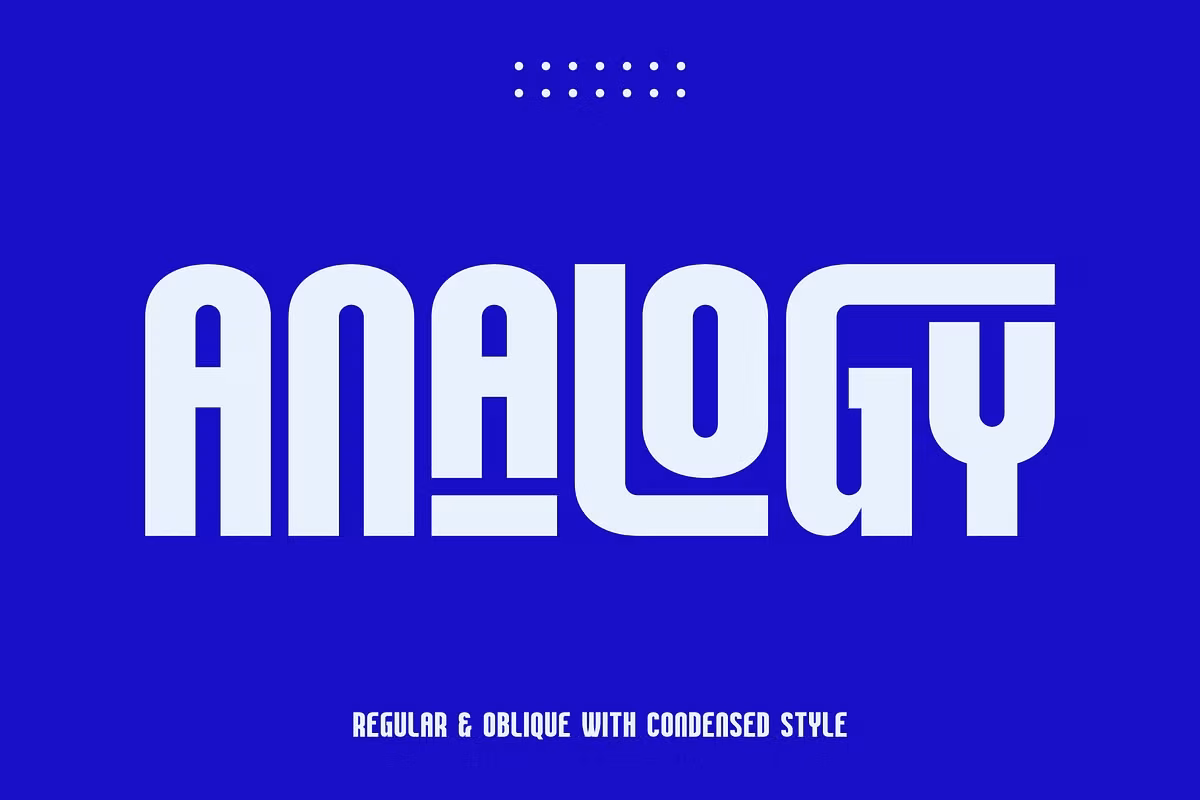
Analogy | Modern Sans Serif Font Free Download
Analogy | Modern Sans Serif Font Free Download is a clean, sleek, and highly versatile typeface designed to give your designs a contemporary and professional look. With its geometric precision and simple lines, this font is perfect for web design, branding, logos, corporate materials, and editorial projects that require clarity and modern appeal.
Analogy combines the simplicity of a sans-serif with stylish curves, ensuring that it’s not only functional but also aesthetically pleasing. Whether you're designing for tech companies, startups, or minimalist brands, this font offers the perfect balance of form and function.